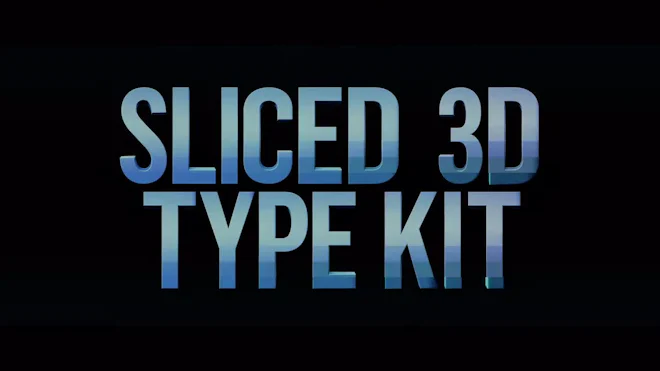
Pack Of 36 sliced 3d typefaces on an alpha channel. Each individual character is revealed in smooth 3d slices rotating into place with dynamic lighting.